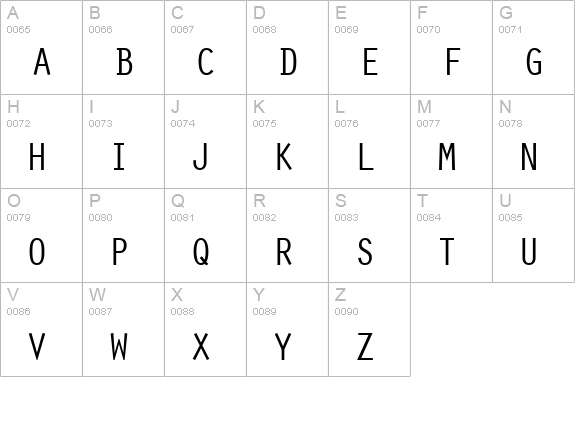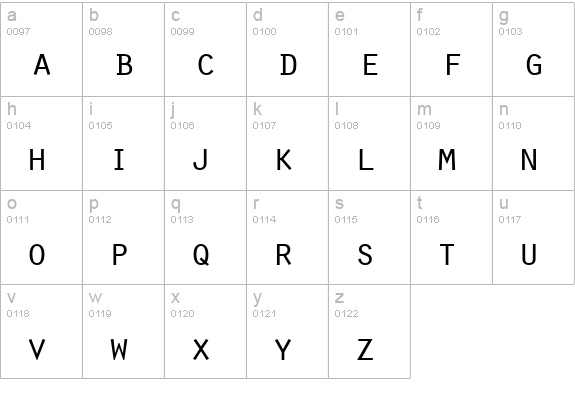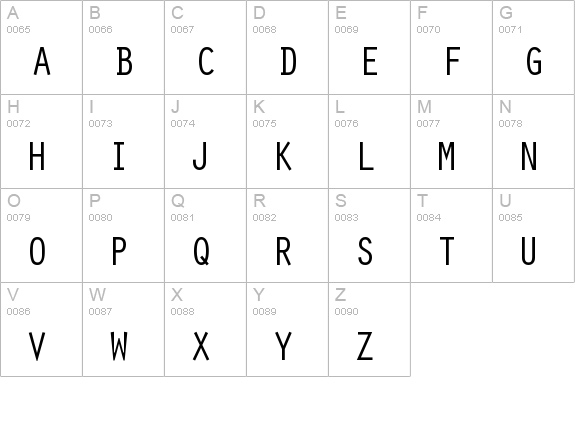
Scribe SSi Small Caps Font Details
Scribe SSi Small Caps font is a stunning and elegant typeface that exudes sophistication and charm. Its delicate and intricate strokes make it perfect for adding a touch of elegance to any project. Whether it's for a wedding invitation, a luxurious brand logo, or a vintage-inspired poster, this font is sure to impress. One of the most remarkable aspects of Scribe SSi Small Caps font is its versatility. It can effortlessly adapt to any design style, from classic to modern, making it a go-to choice for graphic designers and typographers alike. Its small caps variant adds a unique and captivating element to the text, making it stand out from the crowd. What sets Scribe SSi Small Caps font apart is its attention to detail. Each letter is meticulously crafted, resulting in a refined and polished look. The combination of its clean lines and subtle curves creates a harmonious balance that is pleasing to the eye. And the best part? Scribe SSi Small Caps font is free! That's right, this exceptional typeface is freely available to download at FontsMarket.com. Now, you can add a touch of elegance and sophistication to your designs without spending a dime. So, whether you're working on a personal project or a professional assignment, Scribe SSi Small Caps font is the perfect choice. It's a timeless and versatile typeface that will elevate any design to new heights. Download it now and let your creativity soar with this stunning and freely available font.